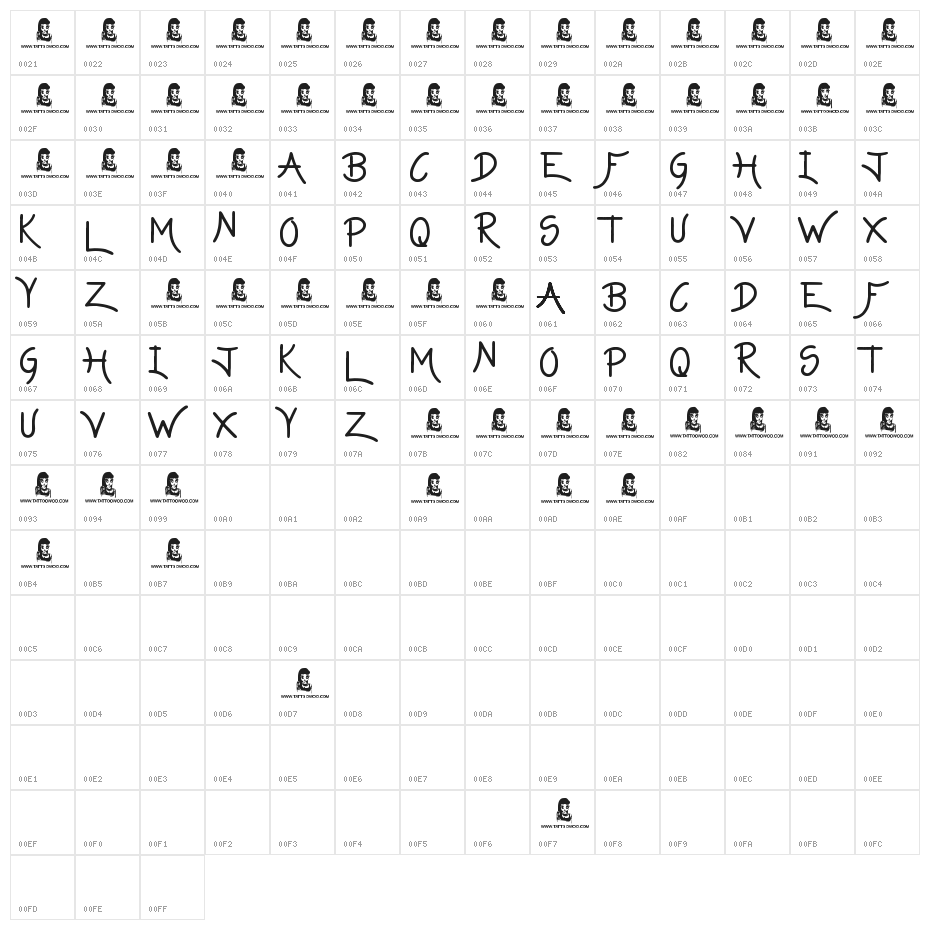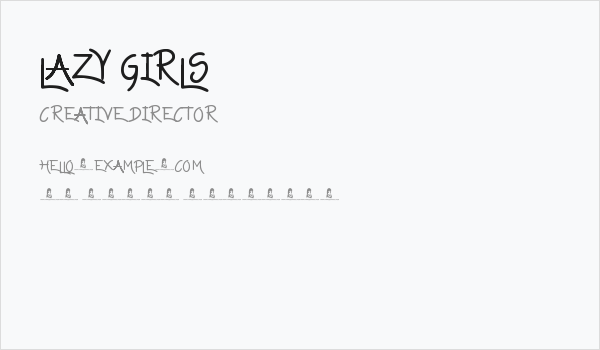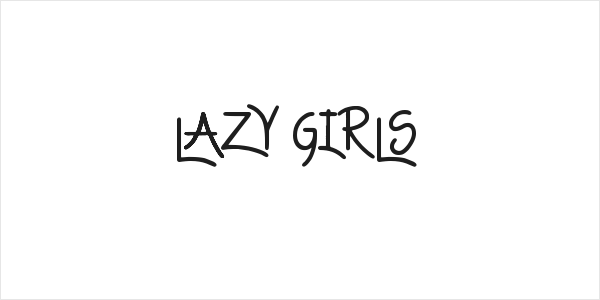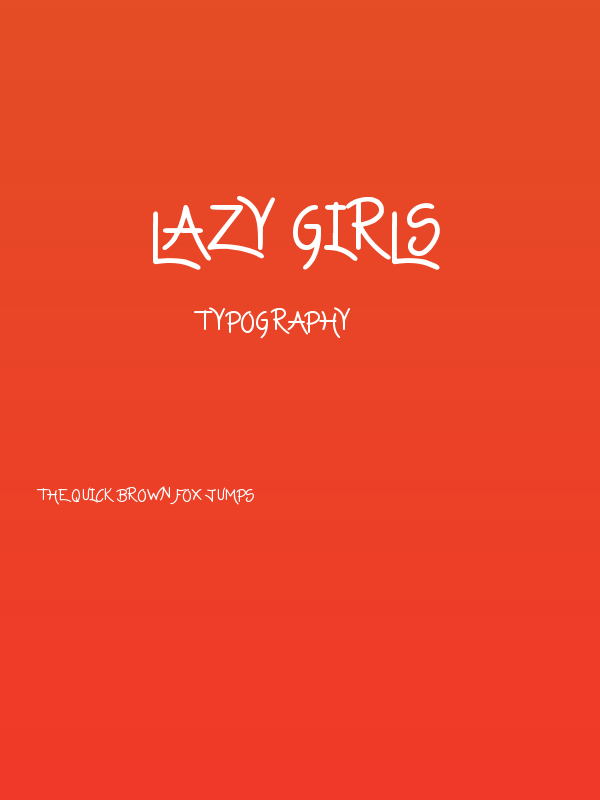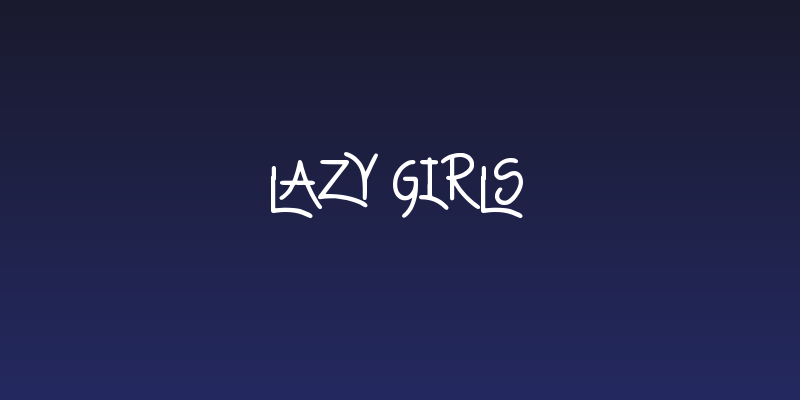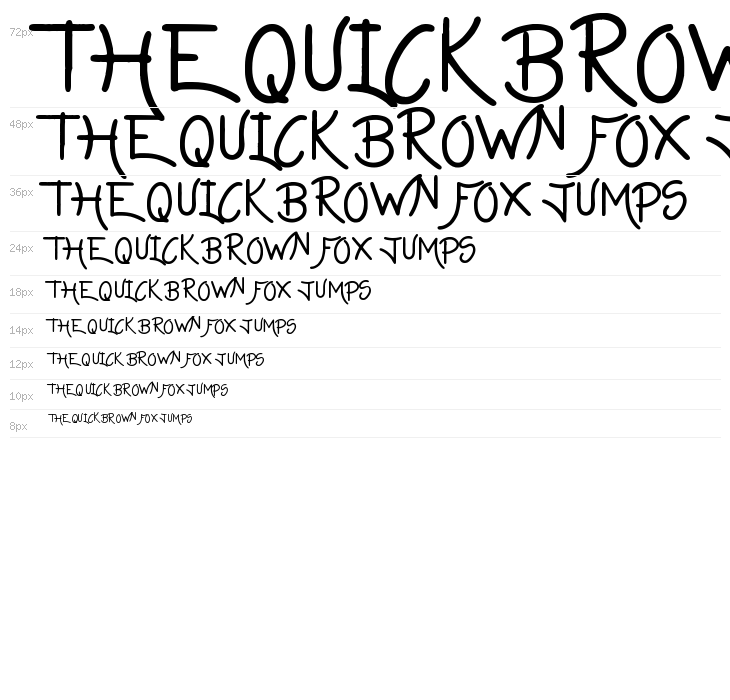
Lazy Girls Font
Lazy Girls Description
This font features a playful and whimsical style, characterized by its flowing, handwritten appearance. The letters have a casual, relaxed feel, with a slight slant that adds to its informal charm. The strokes are consistent in width, providing a uniform look across all characters. The uppercase letters are bold and prominent, while the lowercase letters maintain a similar style, ensuring readability. The font's unique personality makes it suitable for creative projects that require a touch of fun and individuality.
| Overall Style | Casual, Whimsical |
| Use Case | Logos, Posters, Creative projects |
| Proposed Projects | Ideal for greeting cards, children's books, playful branding, and creative posters. |